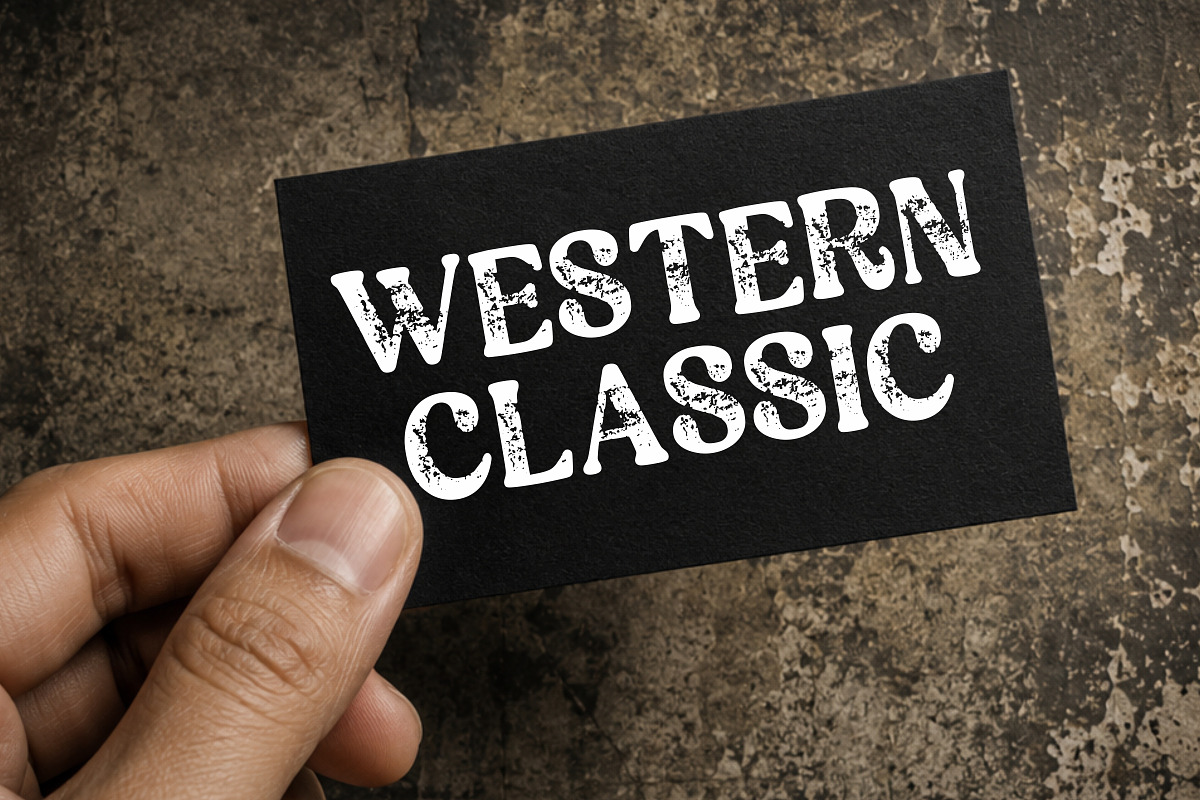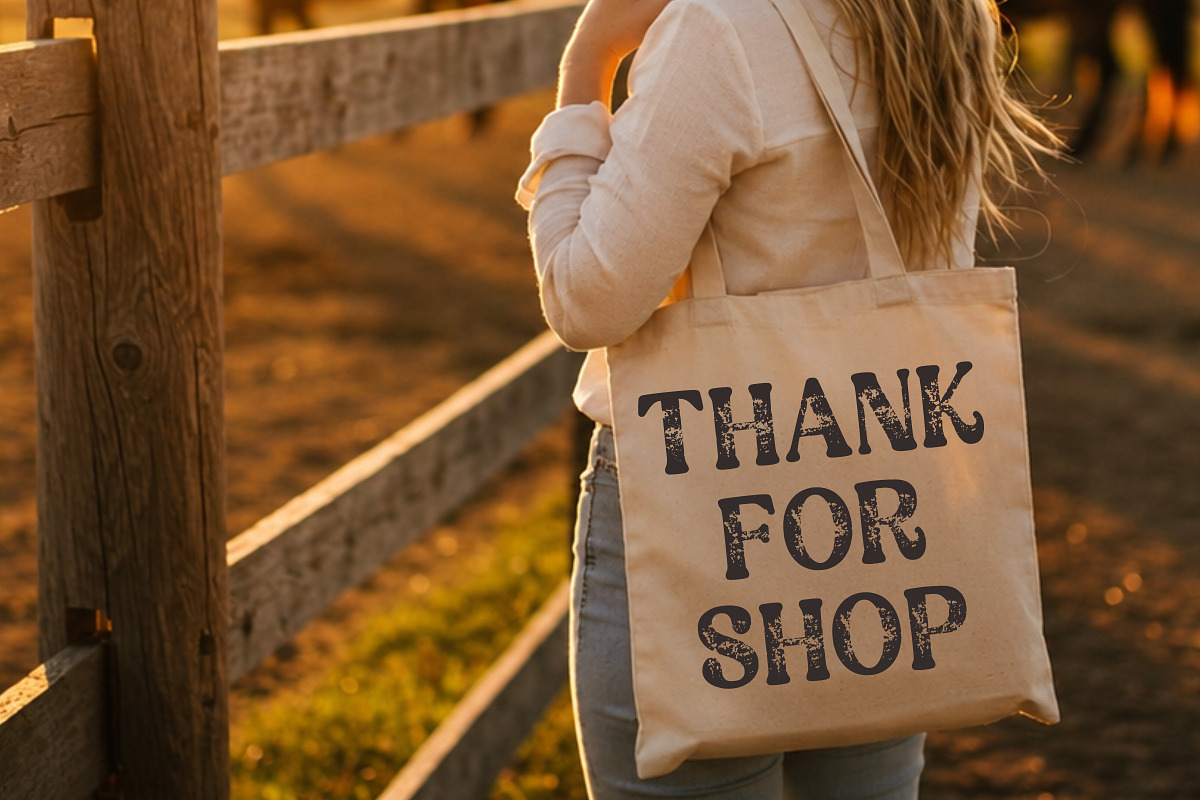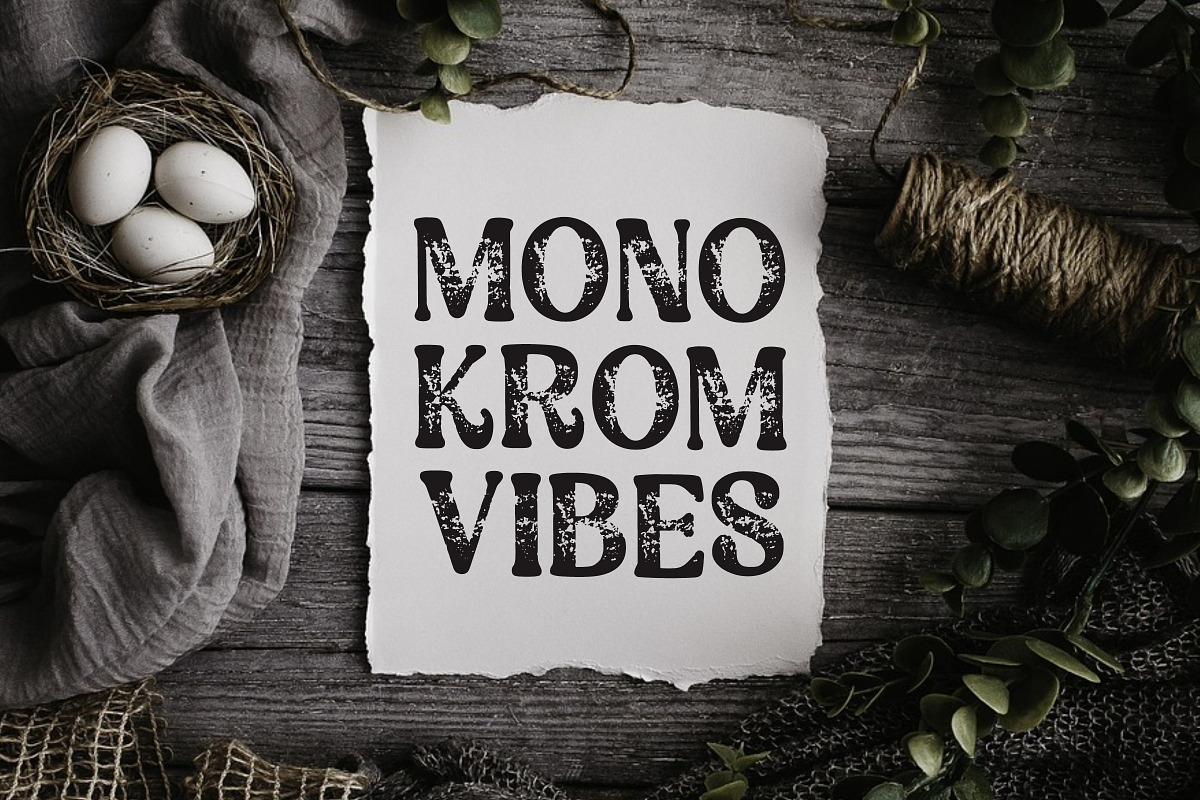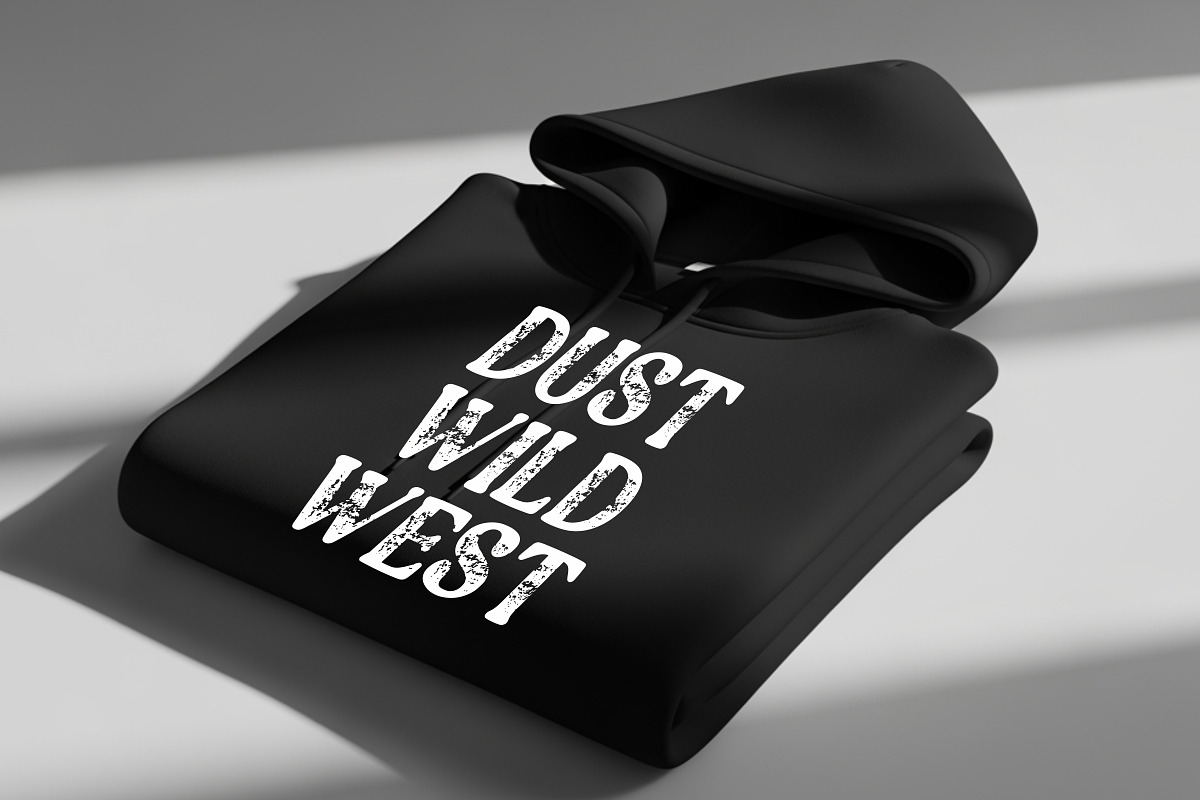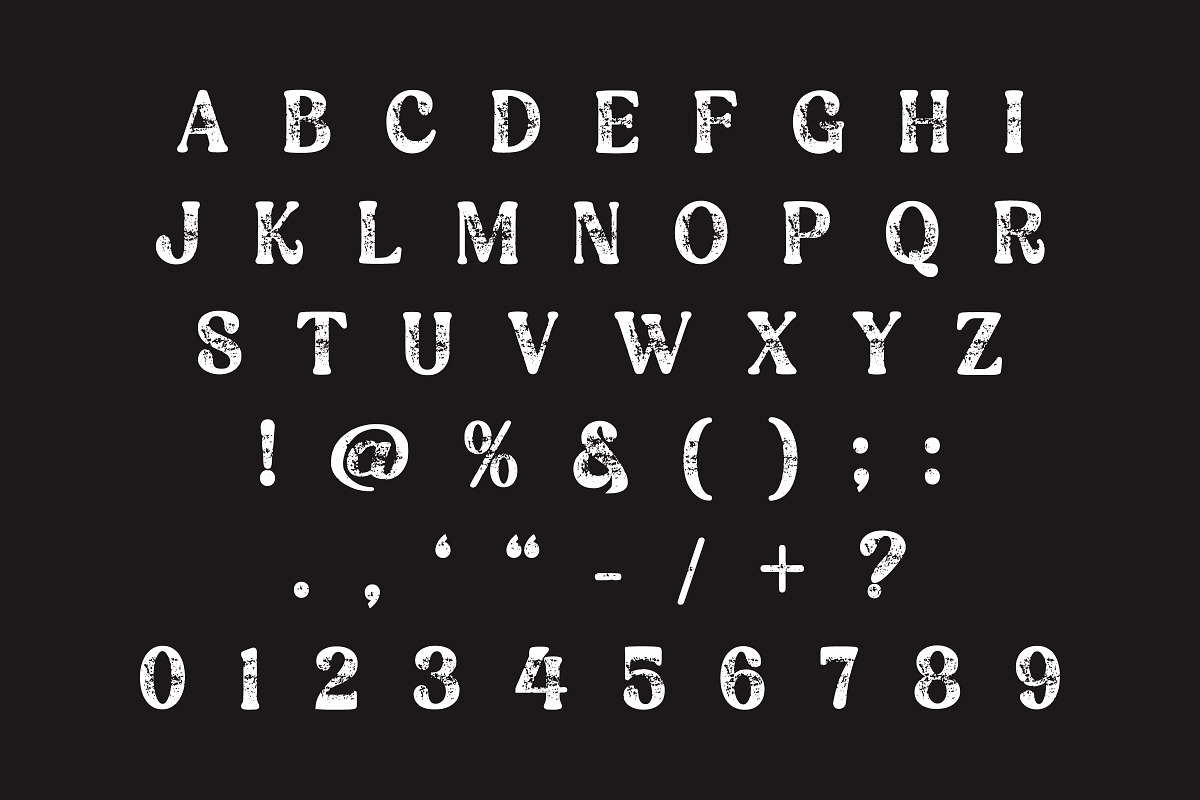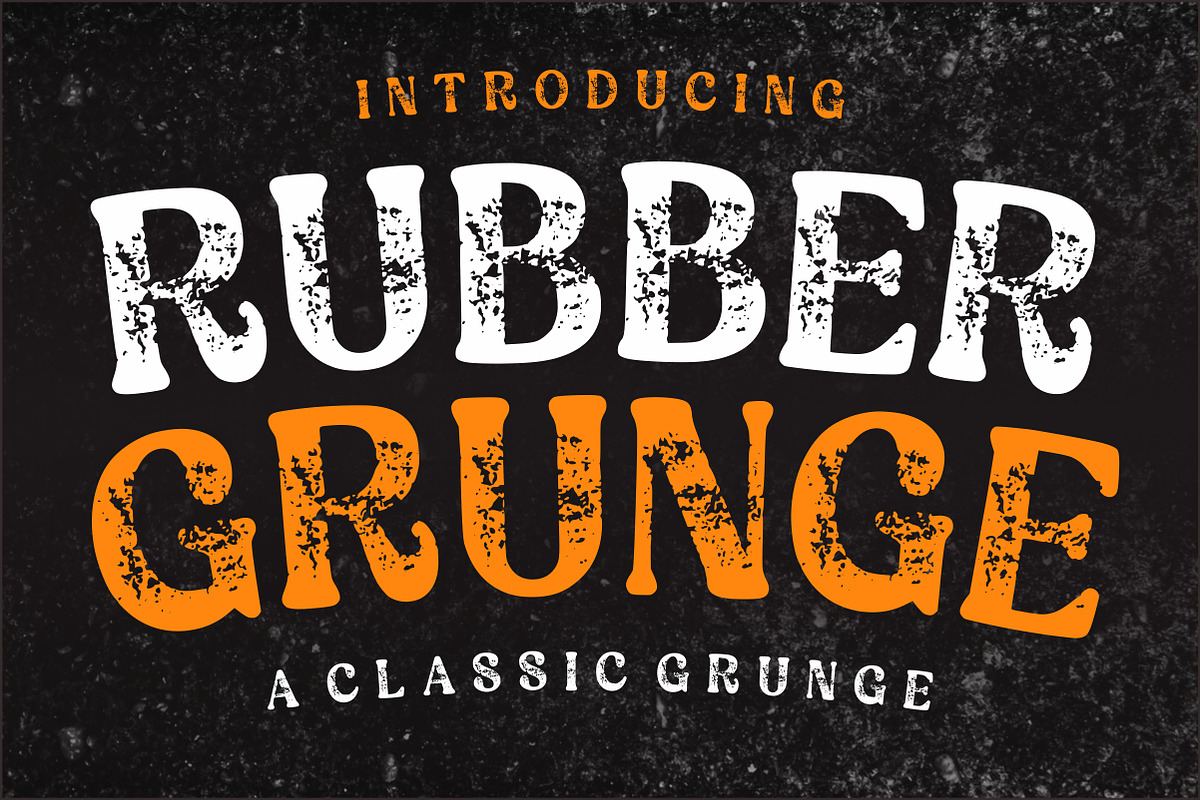
Rubber Grunge - Vintage Distressed
Rubber Grunge is a bold vintage display font featuring a heavily distressed texture that delivers an authentic worn-out appearance. Inspired by retro signage, old print posters, western typography, and rugged branding, this typeface brings a strong handcrafted character to any creative project.
Perfect for logos, posters, packaging, apparel, headlines, labels, social media graphics, advertising campaigns, book covers, and rustic-themed designs. The rough texture creates a timeless grunge aesthetic while maintaining excellent readability.
Whether you're creating vintage branding, outdoor adventure graphics, rustic restaurant menus, craft product packaging, or retro promotional materials, Rubber Grunge adds a powerful and authentic distressed look.
Uppercase letters
Numbers and punctuation
Distressed grunge texture
Best For
Vintage Branding
Retro Posters
Western Designs
Rustic Packaging
T-Shirt Designs
Craft Labels
Adventure Branding
Restaurant Menus